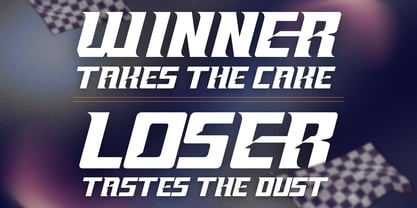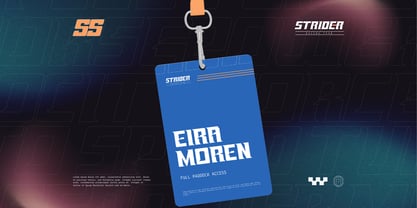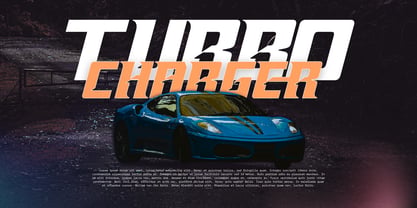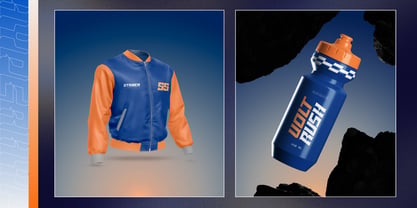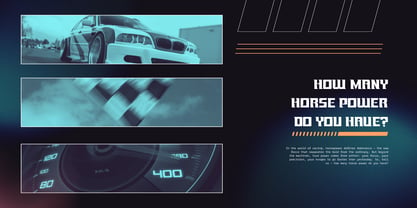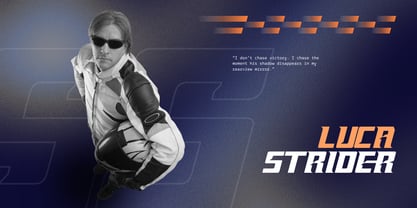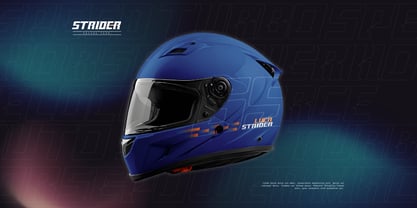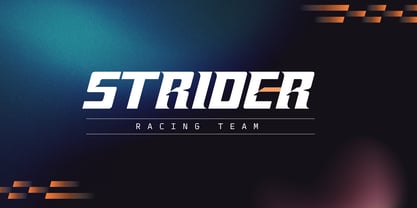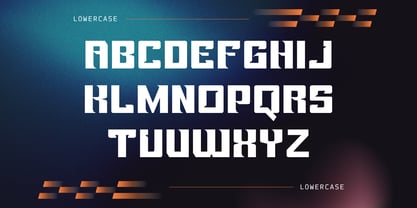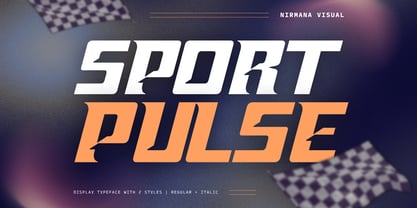
Sport Pulse
by Nirmana Visual
The Sport Pulse Font Family was designed by Sigit Dwipa and published by Nirmana Visual. Sport Pulse contains 2 styles and family package options. More about this family
Sport Pulse is a dynamic racing and techno-inspired font designed for speed, power, and precision. Its bold regular and sleek italic styles capture the energy of motorsports and futuristic design. Perfect for racing logos, car branding, esports titles, and modern tech visuals, Sport Pulse delivers a sense of motion and adrenaline. With sharp edges and aerodynamic letterforms, it embodies performance, innovation, and the thrill of competition.